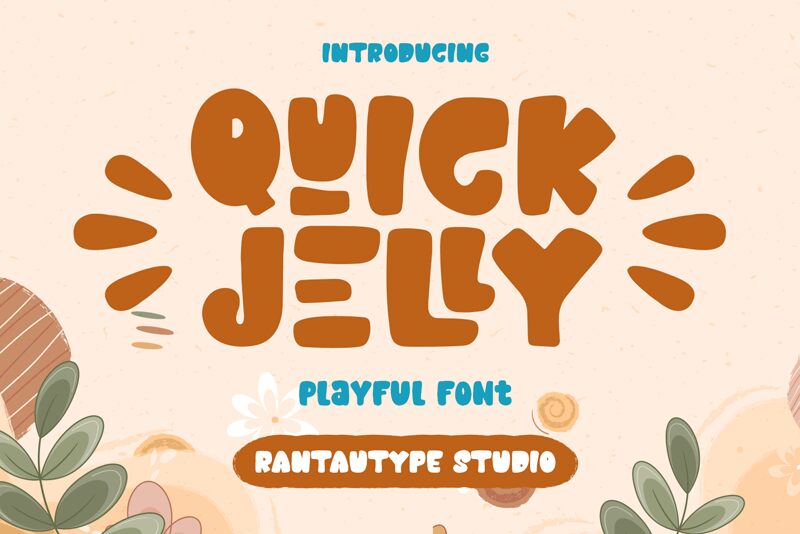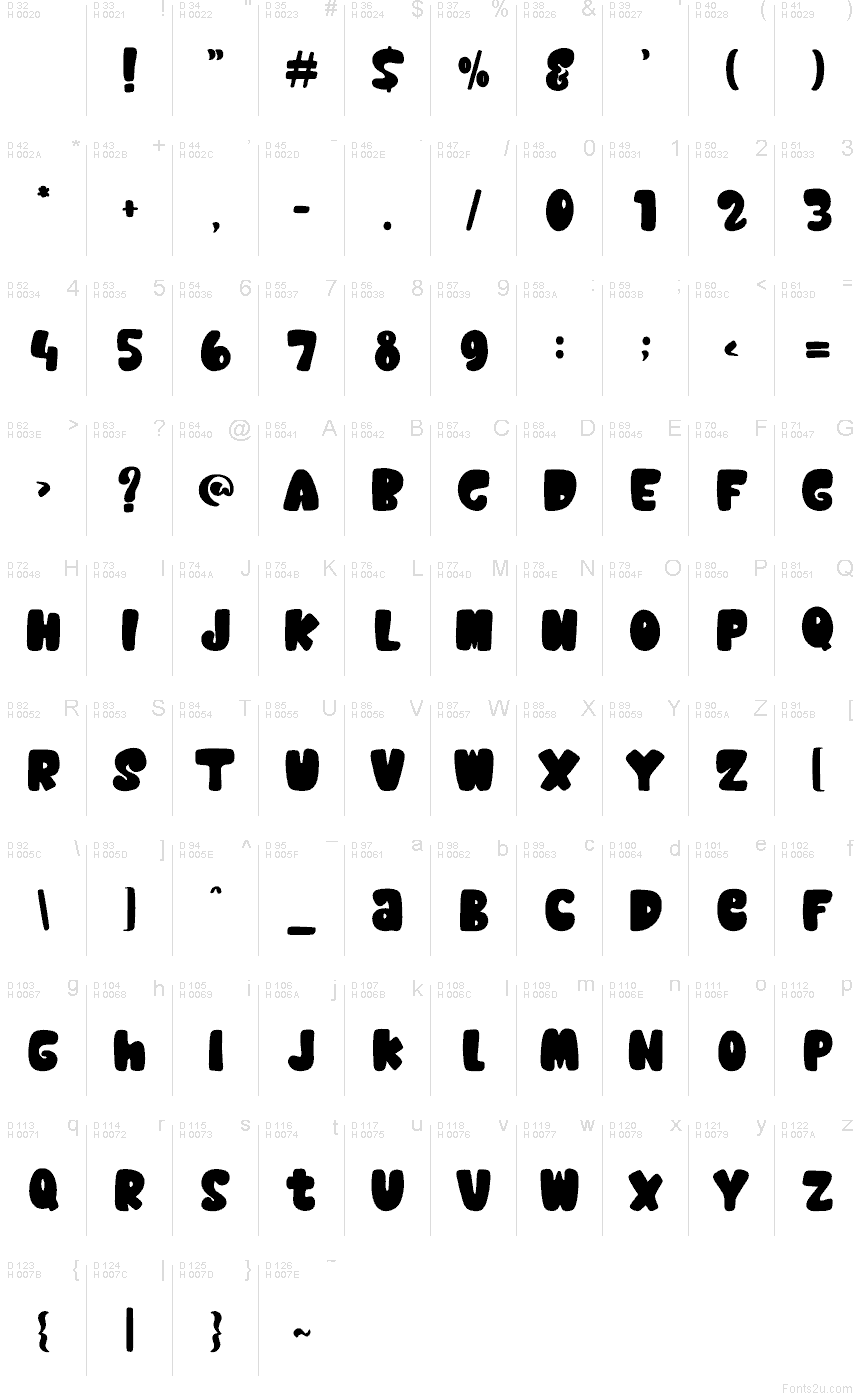
Quick Jelly
Quick Jelly font by RantautypeStudio is a free cartoon display typeface that looks like it’s been poured onto the page—thick, bouncy, and a little bit wobbly in the best way. The chunky shapes and soft, rounded edges give it a squishy, candy-like feel that jumps out even at a glance. Its tight rhythm and bold black shapes make words feel loud and giggly, so you don’t have to work hard to grab attention.
Using Quick Jelly, your titles almost animate themselves, making it a natural fit for kids’ book covers, birthday invitations, toy packaging, classroom posters, game logos, and playful social graphics. This free font shines at large sizes, where its blobby forms can really show off. Pair it with a clean, simple sans serif for small supporting text to keep everything readable while letting Quick Jelly do the fun, noisy work.